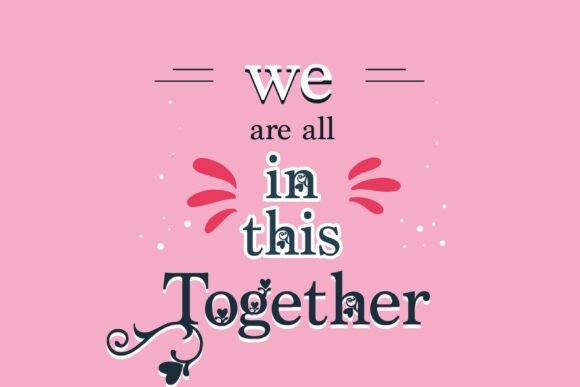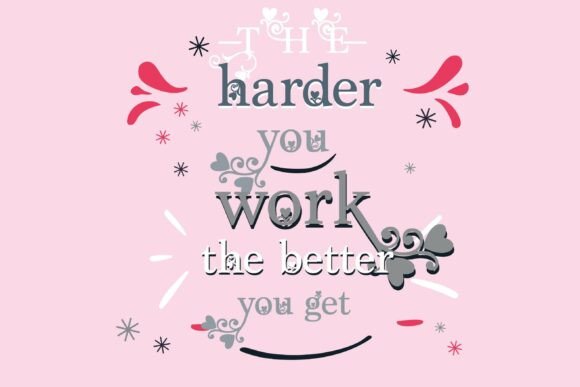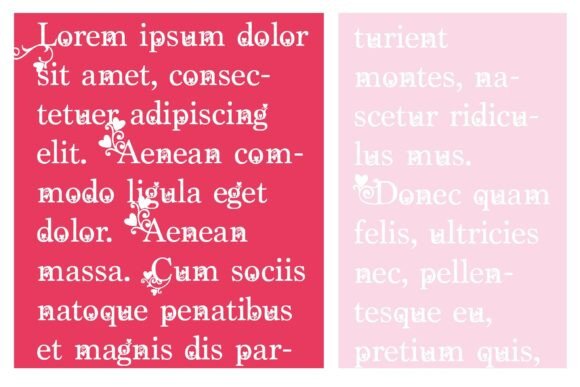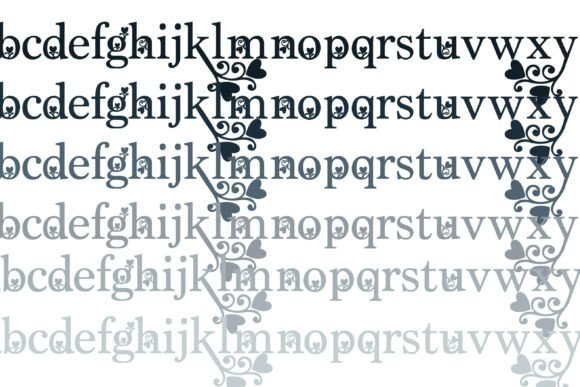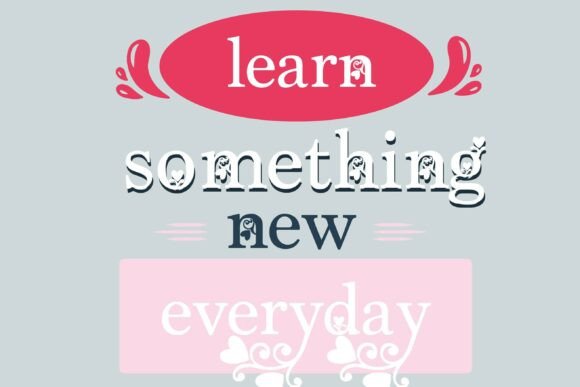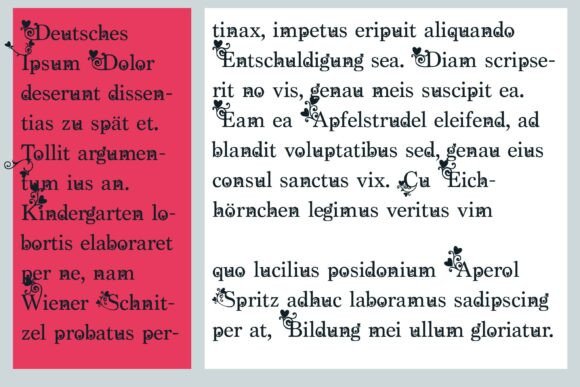
Introduction to Love Flourish Font
Add a touch of classical romance to your work with Love Flourish font, an elegant decorative serif that blooms with intricate, swirling vines and heart-shaped leaves.
This โflourished serifโ Love Flourish typeface is a masterclass in decorative elegance, making it a premier choice for wedding monograms, upscale floral shop branding, and formal invitations The contrast between the traditional serif structure and the whimsical, organic flourishes gives the Love Flourish font a timeless, fairytale quality.